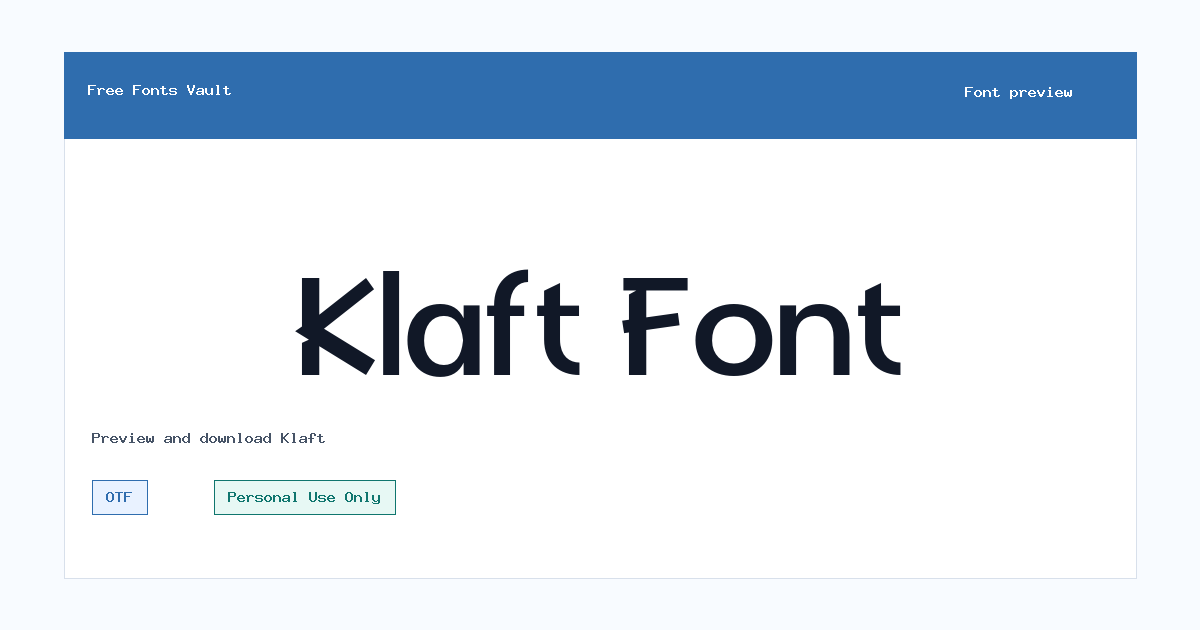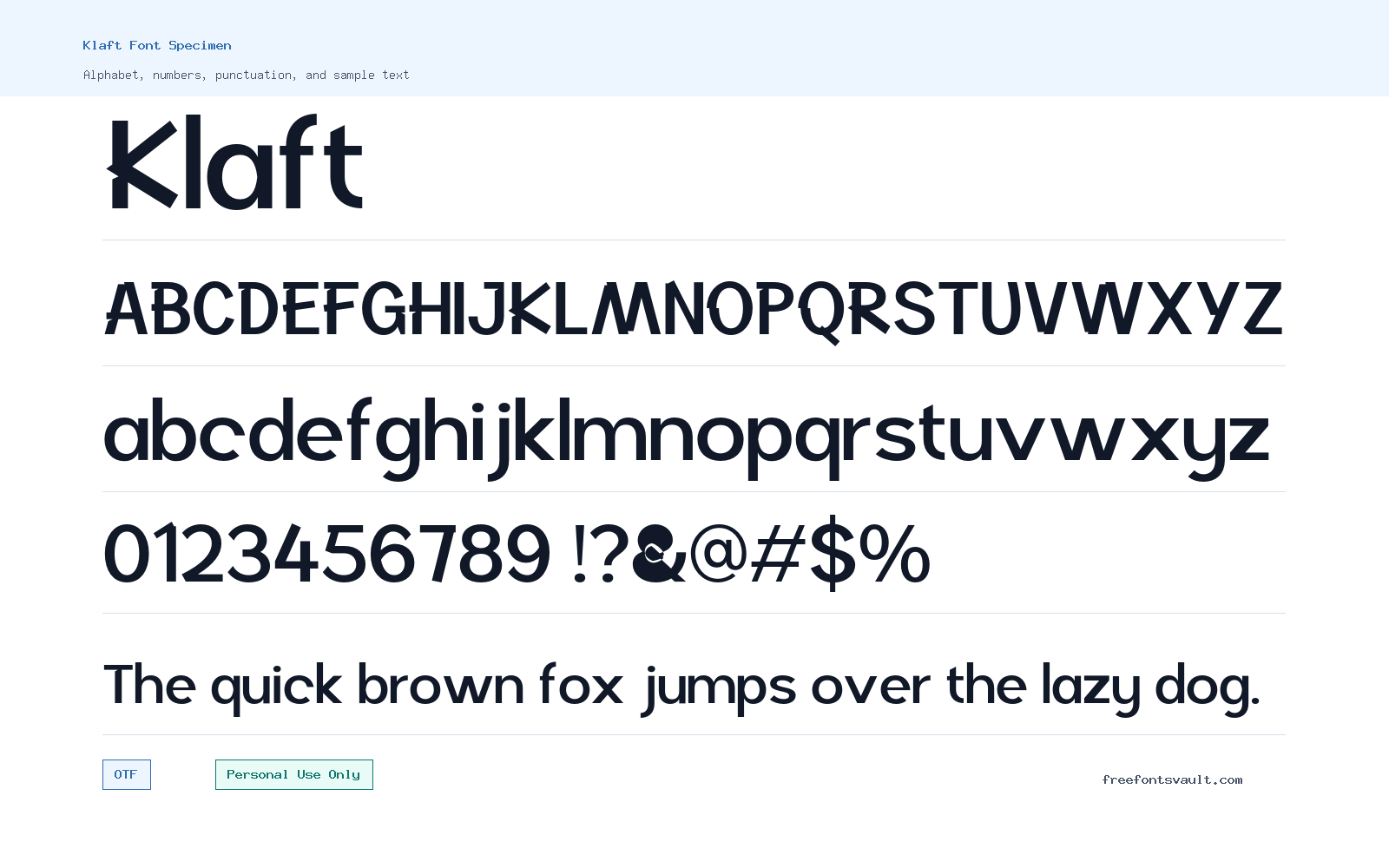
Klaft
- Designer Bakhrudin Ja'far
Klaft is a sans serif font family with a clean, straightforward look and several OTF styles for testing different levels of weight and emphasis.
About Klaft Font
Klaft works best when you want a simple sans serif voice without heavy decoration. The family name and file names point to a practical range that includes Thin, ExtraLight, Light, Regular, Medium, SemiBold, and Bold styles, which gives you room to build hierarchy in a design instead of relying on one weight for every line. The lighter cuts can suit short headings, minimal posters, clean social graphics, or quiet branding drafts, while the heavier cuts are better for stronger titles, labels, and callouts. Because the design information is limited, the safest way to judge it is by using the preview tool with your own words, especially if your project needs a very specific tone.
For best results, test Klaft at the size you plan to use. Thin and extra-light styles can look elegant in large display text, but they may lose clarity at small sizes or on low-resolution screens. Regular and Medium are safer starting points for readable short paragraphs, captions, menu labels, and interface-style text. Bold and SemiBold can help create contrast for headings or buttons, but avoid setting long body copy in the heaviest styles unless the preview still feels comfortable. If you pair Klaft with another font, try a readable serif for editorial layouts or a neutral sans serif for supporting text. Keep the pairing simple so the page does not feel crowded.
- Sans serif structure suited to clean titles, short text blocks, labels, and design mockups
- Posters, social media graphics, headings, display titles, and clean personal design experiments
- Branding drafts, web mockups, menu labels, simple cards, and short readable text when tested at the right size